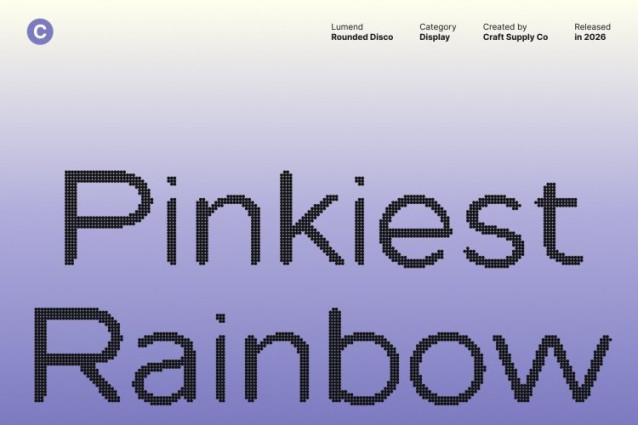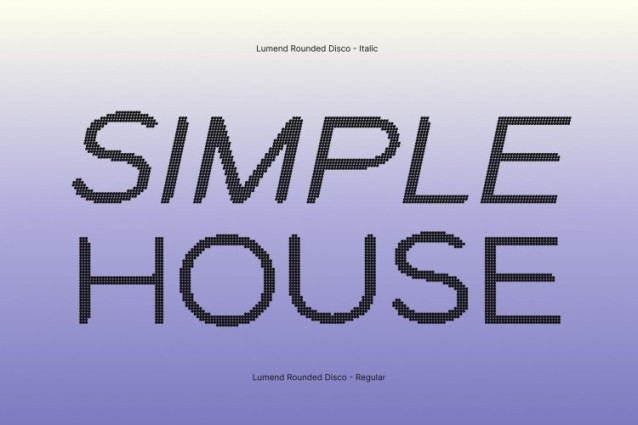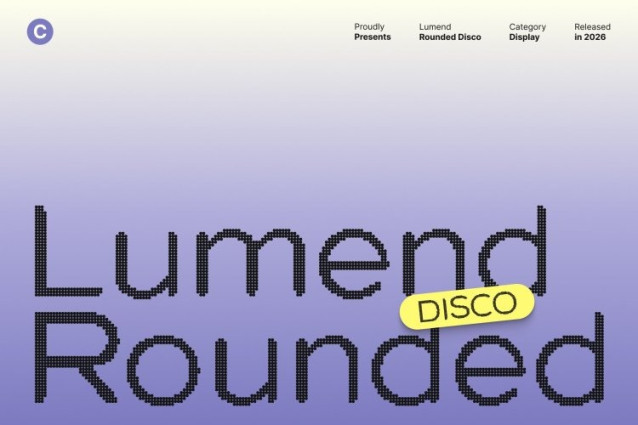
Lumend Rounded Disco Font This features smooth rounded terminals and a low-contrast sans serif structure that feels soft, welcoming, and easy on the eyes. Enhanced with a subtle disco-inspired rhythm, its letterforms feel lively and expressive like gentle movement under glowing lights.
Contemporary Style with a Festive Twist
With its rounded edges and clean construction, this font brings a modern interpretation of classic sans serif design. The disco influence adds a cheerful, upbeat personality, making the typeface feel fresh, current, and full of positive energy.
Friendly, Versatile, and Easy to Use
Designed for versatility, this font works beautifully across branding, editorials, digital interfaces, and creative content. Its low-contrast forms ensure strong readability, while its friendly curves add charm and approachability to any layout.
Soft Modernity for Bright Creative Projects
This font strikes a harmonious balance between softness and modern expression. Ideal for projects that need a warm, inviting tone with a touch of celebration, it delivers a clean, versatile look that feels friendly, stylish, and joyfully alive.